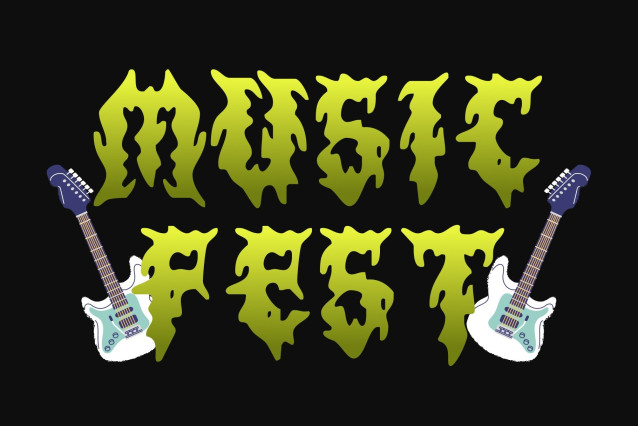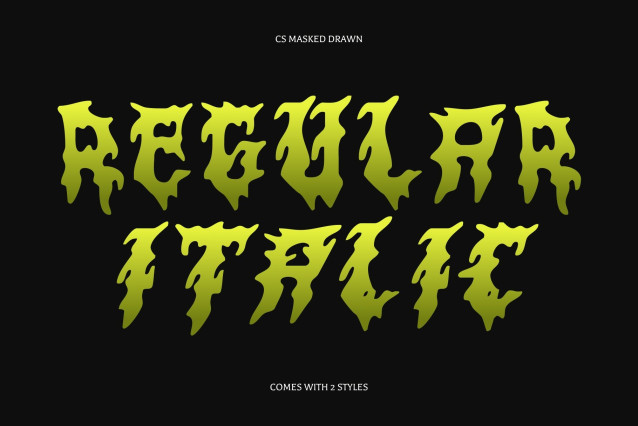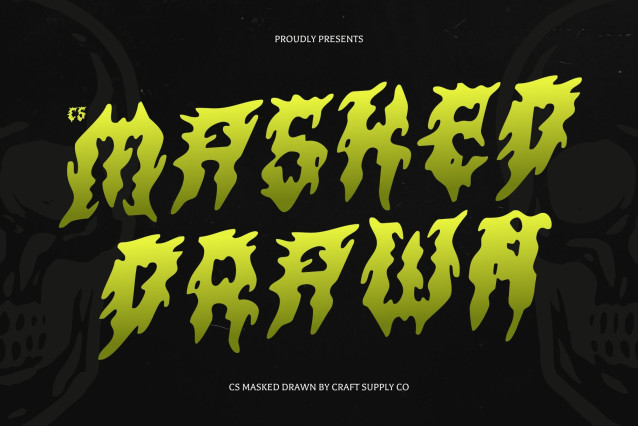
CS Masked Drawn Font
CS Masked Drawn Font – This is a raw black metal display font forged from darkness, aggression, and extreme intensity. Enhanced with a brutal hand-drawn effect, each letter feels violently scratched and instinctive, as if carved through pure emotion. Its jagged forms and chaotic strokes create a ruthless visual language that represents rebellion, power, and uncompromising force.
Chaotic Letterforms with Distorted Drawn Texture
Every character is constructed from sharp edges, irregular spikes, and unstable contours. The hand-drawn texture amplifies its savage nature, giving the font an organic and feral appearance. No stroke feels controlled or polished, resulting in letterforms that appear alive, distorted, and in constant motion perfectly echoing the visual identity of underground black metal culture.
Extreme Expression for Dark Visual Impact
Designed for maximum aggression and dominance, this font delivers instant visual impact. Its harsh structure and rough drawn distortion ensure that every word commands attention. Whether applied to massive headlines or compact logo marks, this font maintains brutal clarity with a raw, unfiltered attitude.
Perfect for Metal Logos, Posters, and Underground Design
This font is built for band logos, album covers, merchandise, posters, and alternative branding. Its dark atmosphere, chaotic shapes, and aggressive hand-drawn texture make it an essential weapon for designs that demand fearlessness, intensity, and an unforgettable underground presence.